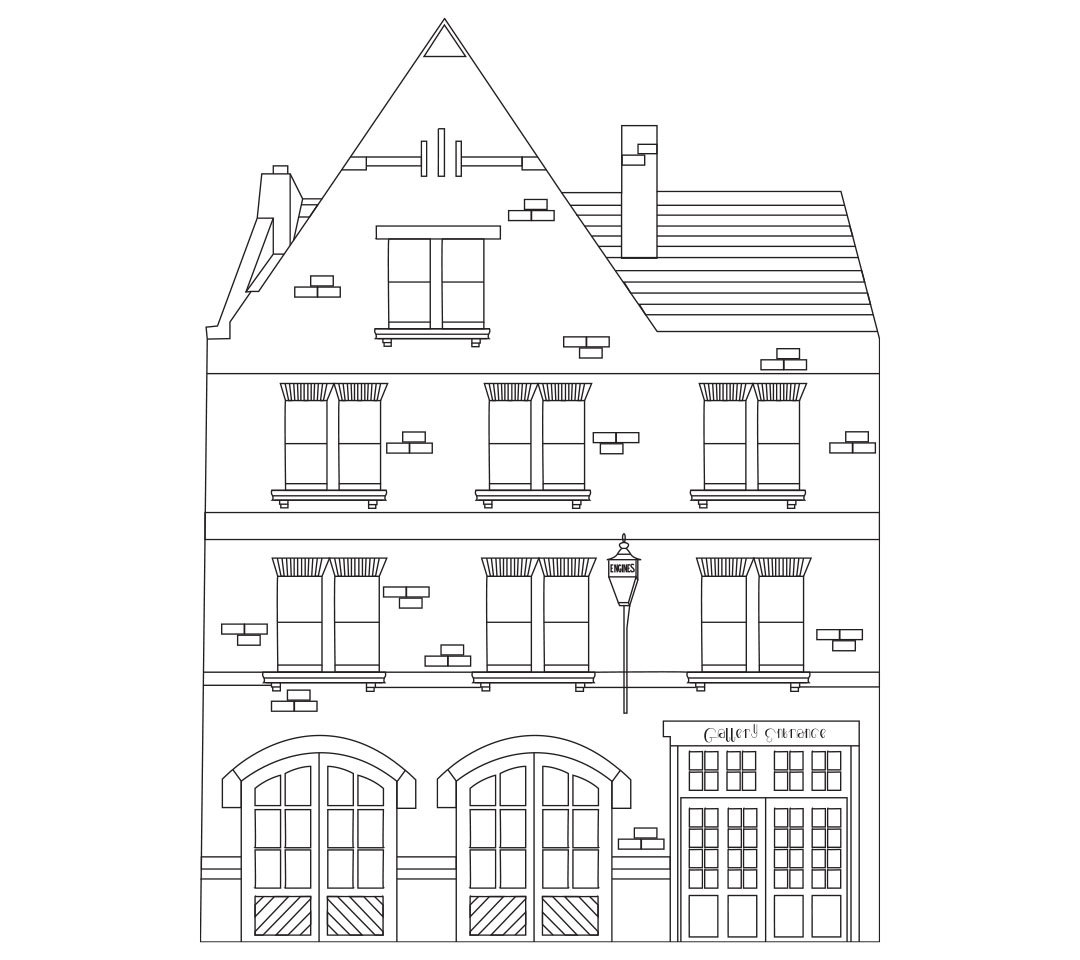
Unfit for purpose is a typeface inspired by the history of the South London Gallery Firestation building, predominantly based on its closure in 1920. The fire station, as it was, didn't meet the updated regulations for fire stations and was classified as 'unfit for purpose'. I wanted to extend this theme into a typographic context by making an effort not to follow modern typography rules while still ensuring it remained fully legible and visually appealing. To demonstrate this, I designed many of the letters to be top-heavy, as well as placing them at varying heights, which is not traditionally acceptable.